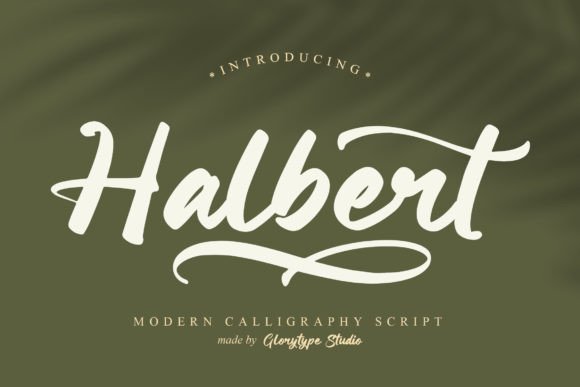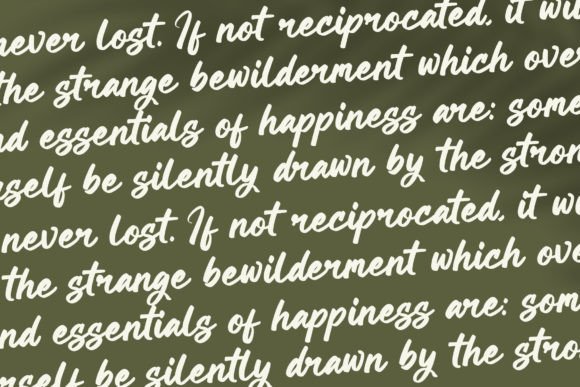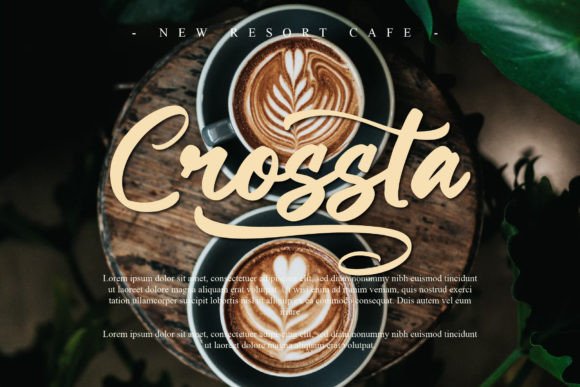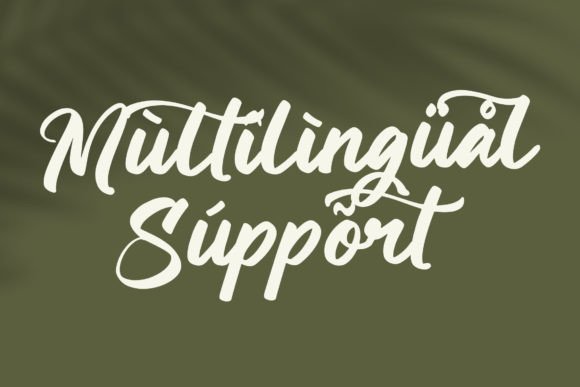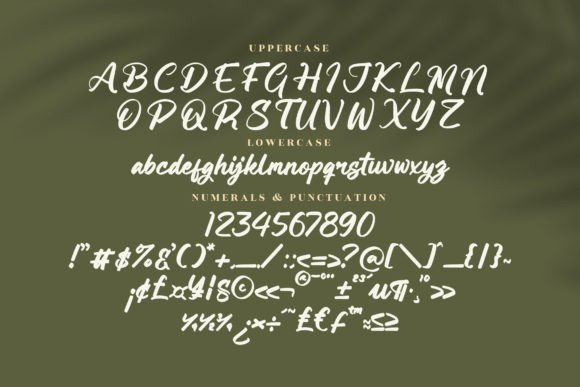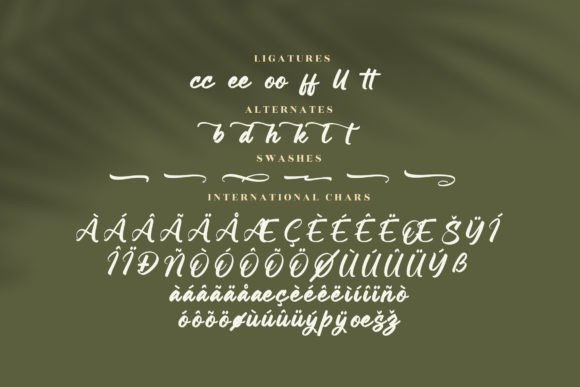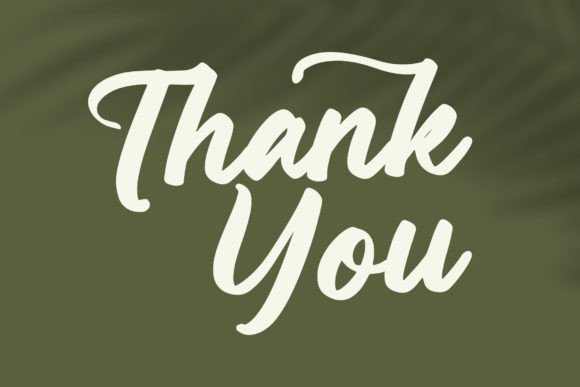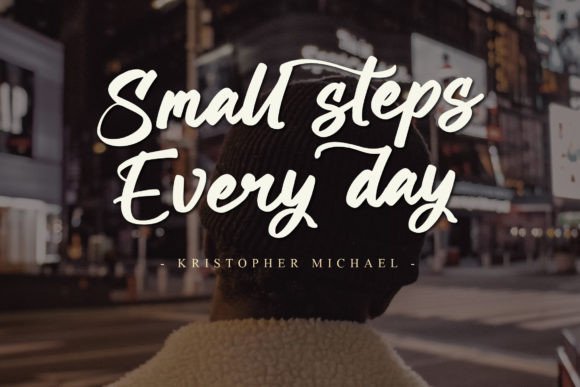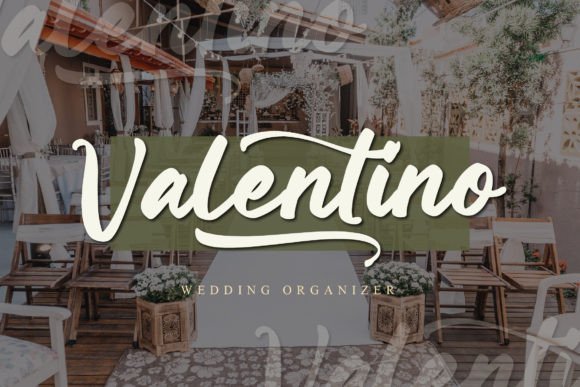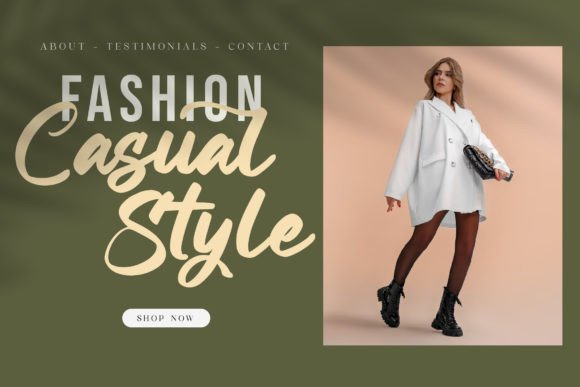
Halbert Font
Halbert – Modern Calligraphy Script is a versatile and stylish font that lends itself well to a wide range of projects. Its modern calligraphy style makes it a suitable choice for various design applications, enhancing the visual appeal of your creations. Here’s how Halbert can elevate different types of projects:
1. **Logos and Branding Projects:**
– Halbert’s modern calligraphy script brings a contemporary and elegant feel to logos and branding materials. It helps create a distinctive and memorable brand identity.
2. **Homeware Designs and Product Packaging:**
– Whether it’s on homeware items or product packaging, Halbert adds a touch of sophistication. Its script style contributes to the overall aesthetics, making your products visually appealing.
3. **Printed Materials (Mugs, Quotes, Posters, Shopping Bags, T-shirts):**
– Halbert enhances the design of printed materials such as mugs, quotes, posters, shopping bags, and T-shirts. Its script taste brings a sense of artistry and uniqueness.
4. **Book Covers and Name Cards:**
– For book covers, Halbert provides an elegant and eye-catching script, making your titles and author names stand out. It’s equally fitting for name cards, giving a personal and stylish touch.
5. **Invitation Cards and Greeting Cards:**
– Halbert is well-suited for creating beautiful and inviting invitation cards. Its calligraphy style adds a touch of warmth and sophistication to greeting cards for various occasions.
6. **Labels and Watermarks:**
– Halbert’s modern calligraphy is perfect for labels on products, giving them a premium and handmade feel. It also works well as a watermark on photos and designs, adding a signature touch.
7. **Photography and Special Events:**
– Use Halbert to add a stylish signature or caption to your photographs. It’s also suitable for creating materials for special events like weddings, parties, or celebrations.
In summary, Halbert – Modern Calligraphy Script is a versatile and beautiful font that enhances the visual appeal of a wide range of projects. Whether you’re working on branding, printed materials, invitations, or special events, Halbert brings a modern calligraphy script taste that adds elegance and charm to your designs.